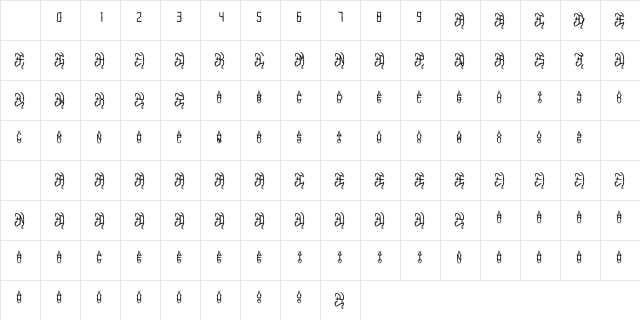
Complete Horror Wings Regular glyph index. Displaying only characters natively supported by Horror Wings Regular font.
Horror Wings carries an unsettling edge - its distorted letterforms are built to unsettle, perfectly suited to horror, Halloween, and dark creative work.
Font Pairing: Pair with a clean neutral sans-serif for body copy to let Horror Wings's character lead without overwhelming the composition.
Pro Tip: Use Horror Wings at larger display sizes for maximum impact. Consider generous tracking to let the disturbing character of each letterform breathe.